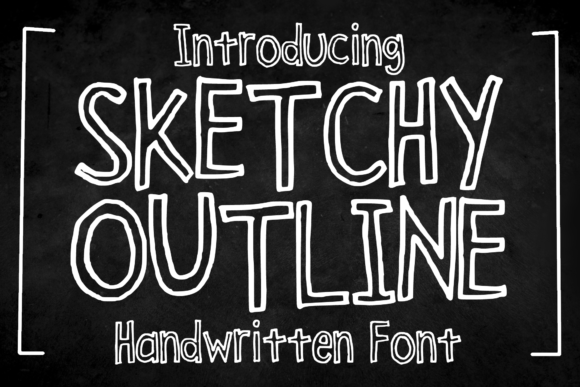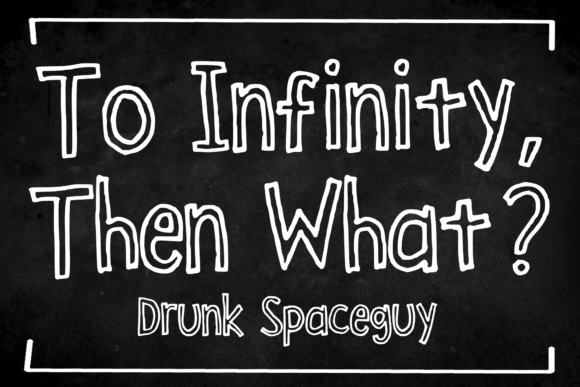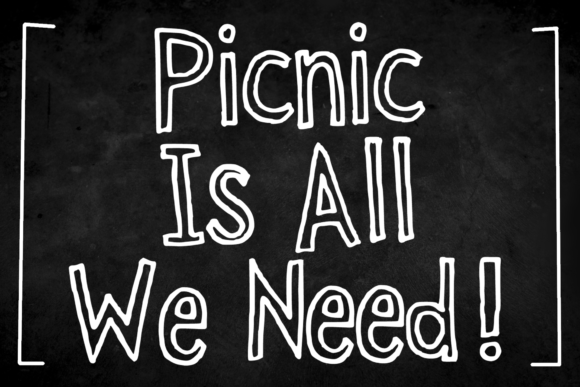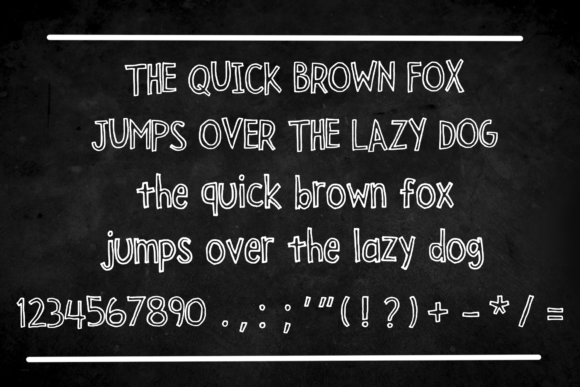
Sketchy Outline Font
Sketchy Outline is a sketchy handwritten display font. It works great for creating cool designs that scream for attention. It’s ideal for anything ranging from t-shirts, book designs, restaurant menus, blog writing, and greeting cards to stickers, or anything that needs a casual touch. Fall in love with its incredibly cool style, and use it to create lovely designs!